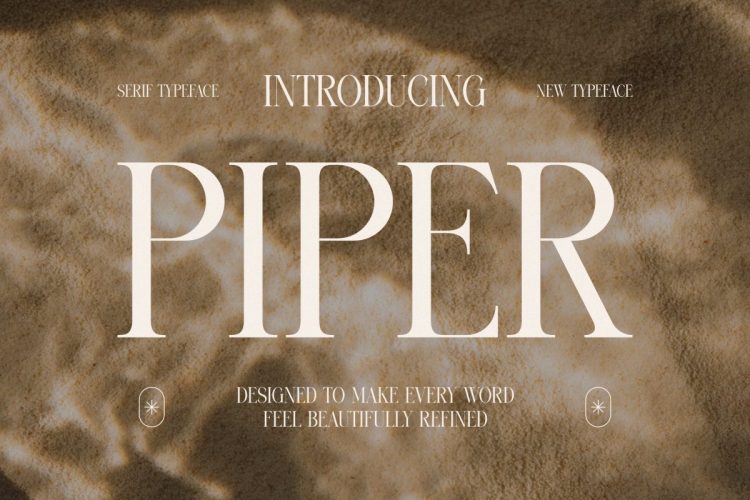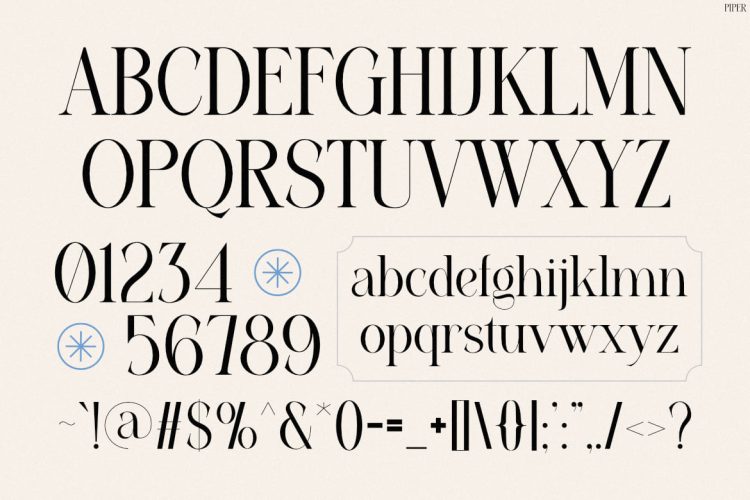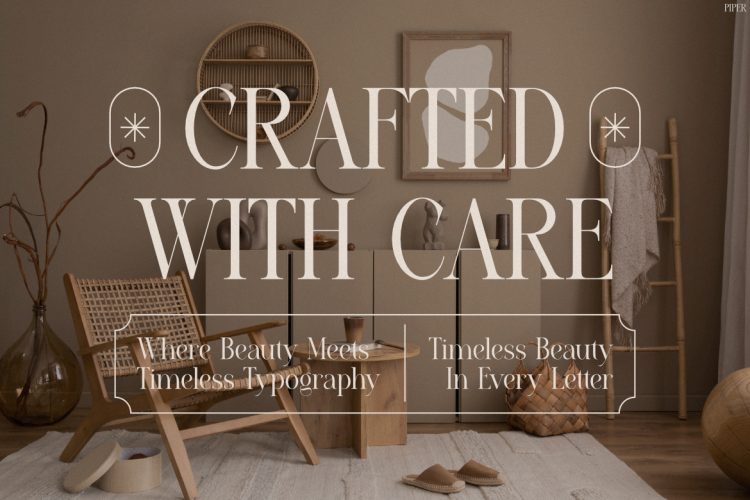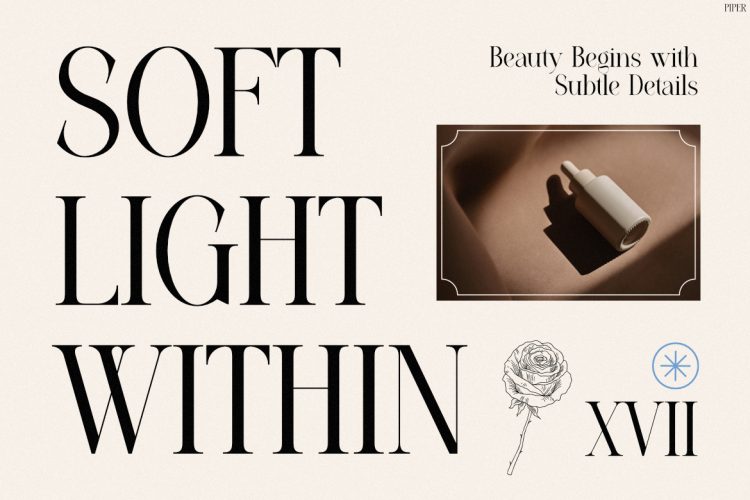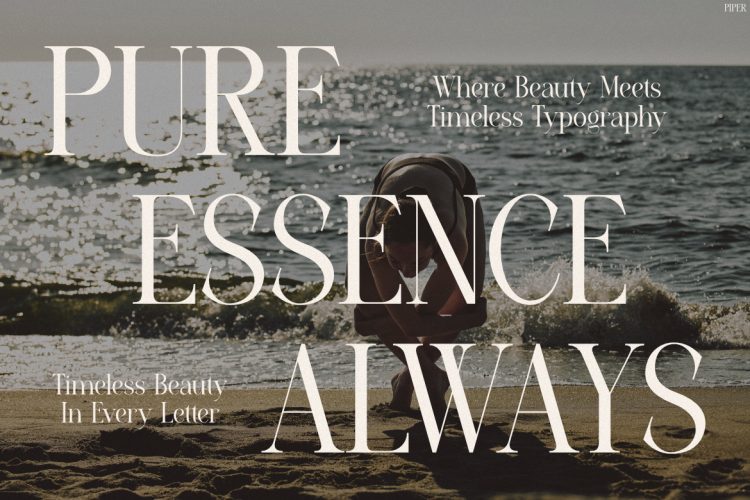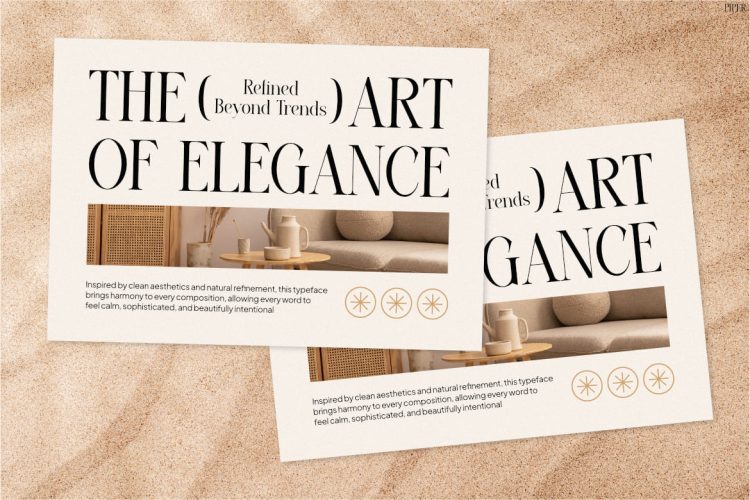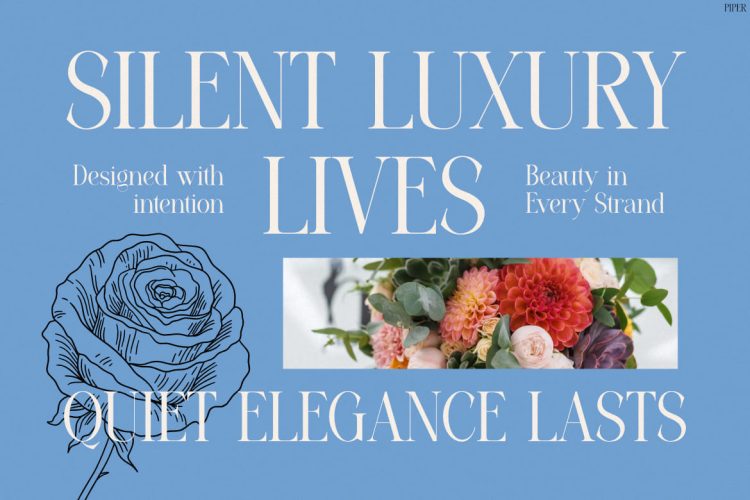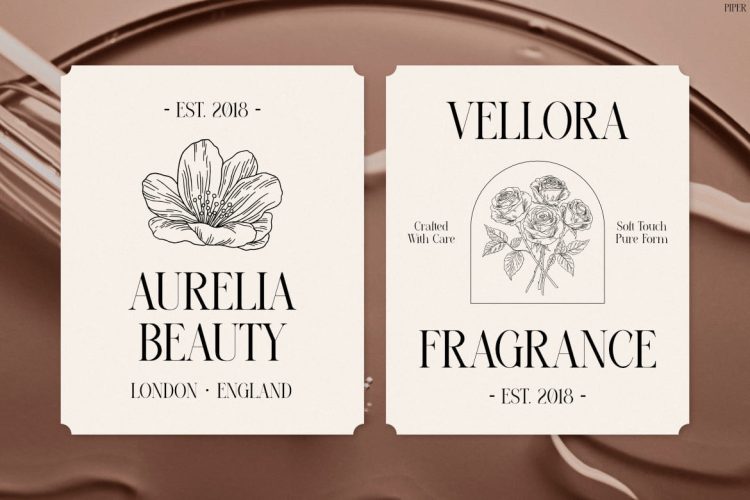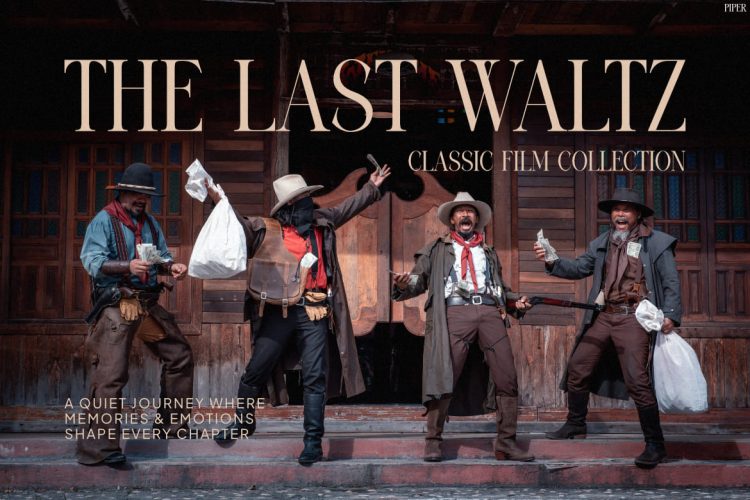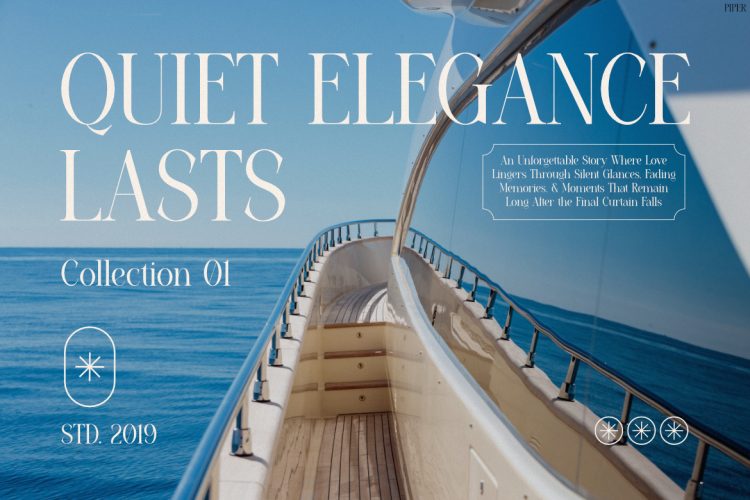
Piper โ Refined Editorial Serif for Luxury Branding & Instagram Aesthetics
Instagram Font Piper is a sophisticated modern serif that blends graceful proportions with timeless elegance. Designed with high-contrast strokes, delicate curves, and refined letterforms, it creates a luxurious editorial look while maintaining exceptional readability. Moreover, every character feels balanced and polished, making your typography look effortlessly premium. As a result, your branding, social feeds, and creative projects instantly gain a clean, elevated aesthetic that leaves a lasting impression.
Why You’ll Love It
Additionally, Instagram Font Piper is crafted for creators who appreciate elegant simplicity. Whether you’re designing beauty branding, fashion campaigns, cosmetic packaging, wedding stationery, or lifestyle content, this typeface adapts beautifully. Furthermore, its refined details pair perfectly with minimalist layouts, luxury photography, and premium brand identities. Besides that, Multilingual Support for 67 languages helps you communicate seamlessly with audiences around the world. Therefore, every project feels consistent, professional, and internationally ready.
Instagram Font Piper Perfect For
Luxury branding, fashion labels, beauty products, skincare packaging, perfume branding, wedding invitations, editorial magazines, Instagram posts, logos, boutique businesses, hotels, cafรฉs, product packaging, social media templates, and premium marketing materials.
Turn Elegance Into Your Signature
Finally, let Instagram Font Piper give your designs a refined identity that stands above the crowd. Not only does it deliver timeless sophistication, but it also enhances every visual with confidence and style. So, add it to your font collection today and create branding that feels effortlessly elegant.